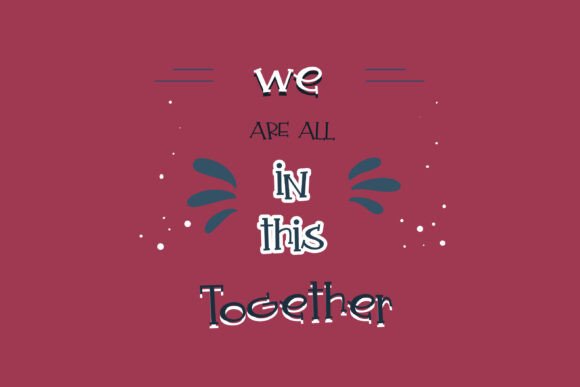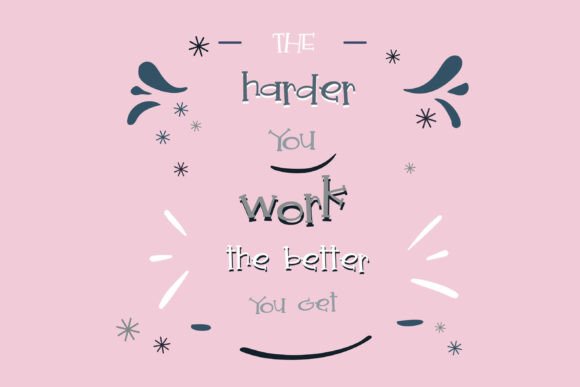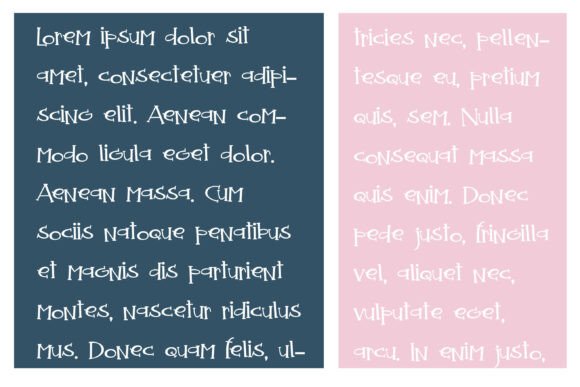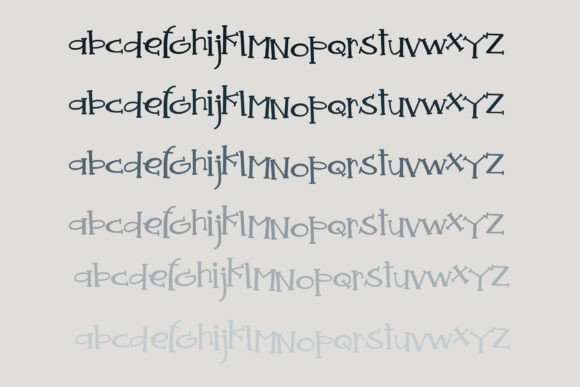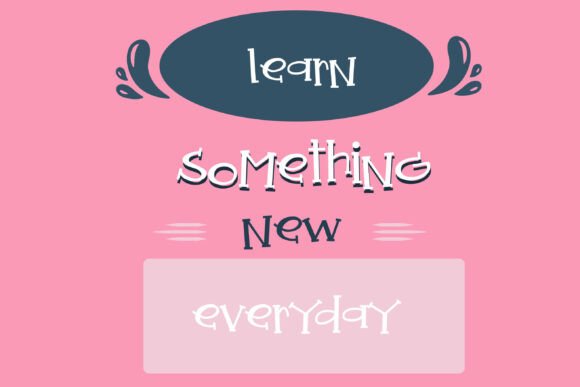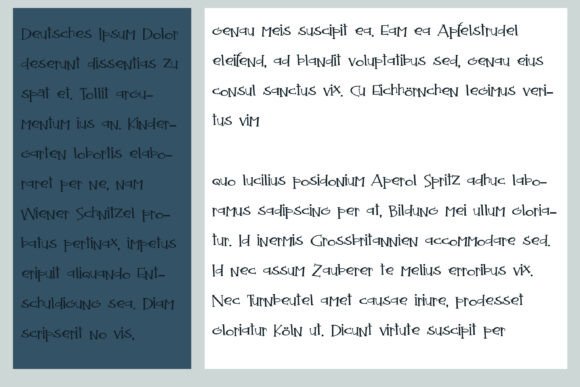
Introduction to Pn Cake Layers Fn Font Font
Fonts play a crucial role in design, and the Pn Cake Layers Fn Font font is a typeface that brings both character and versatility to any project. Whether you’re working on a branding project, a website, or a print design, the Pn Cake Layers Fn Font font offers a unique style that can elevate your work.
Cake Layers is a sweet and playful hand-crafted serif font with a whimsical personality and a delightful bounce.
Each letter is uniquely shaped with charming irregularities, giving the typeface a lively, almost frosted lookβperfectly matched to its namesake The tall serifs and quirky angles create an uplifting rhythm, while the imperfect alignment and hand-drawn feel add warmth and character.
Key Features of Pn Cake Layers Fn Font Font
Why Choose Pn Cake Layers Fn Font Font?
The Pn Cake Layers Fn Font font is more than just a typeface β it’s a design tool that helps you communicate your message with style and clarity. Its unique character set and versatile design make it suitable for a wide range of applications, from elegant invitations to bold headlines.
With its carefully crafted letterforms and balanced proportions, the Pn Cake Layers Fn Font font ensures readability and visual appeal across all mediums.
What makes Pn Cake Layers Fn Font font special?
The Pn Cake Layers Fn Font font stands out with its unique design, exceptional readability, and versatility across various design applications.